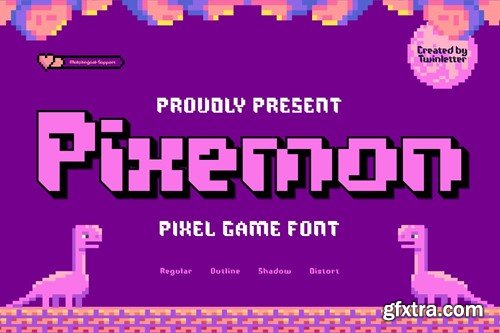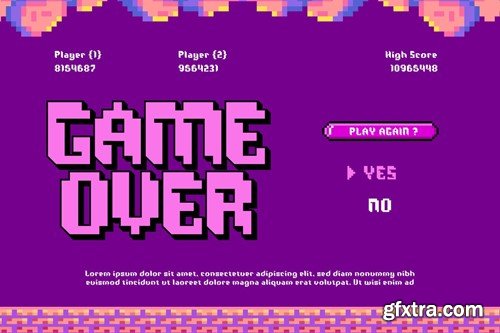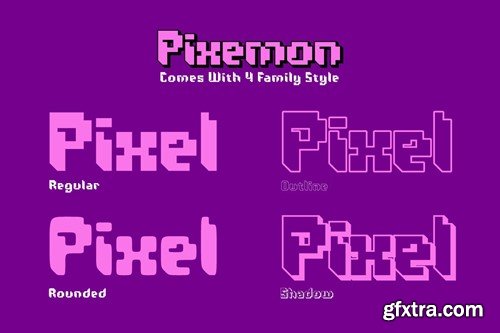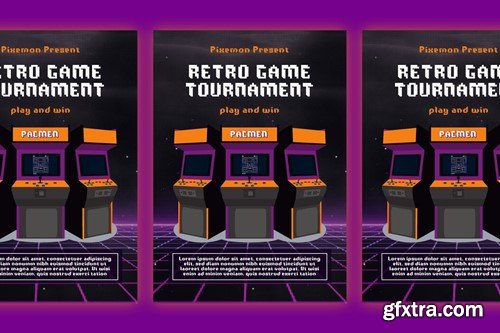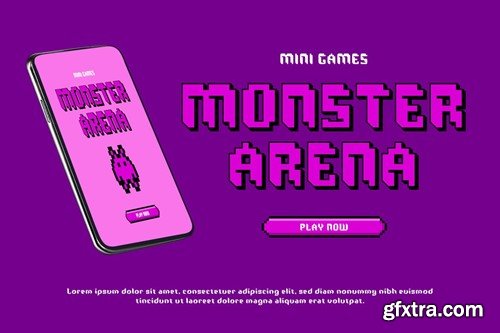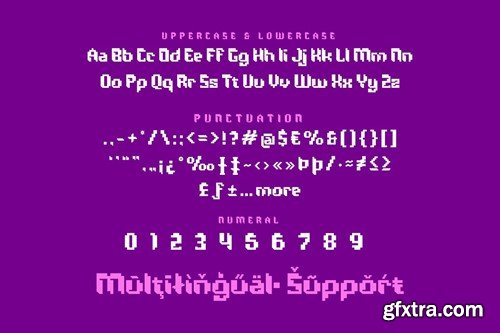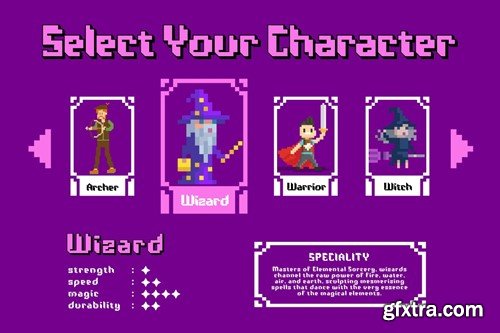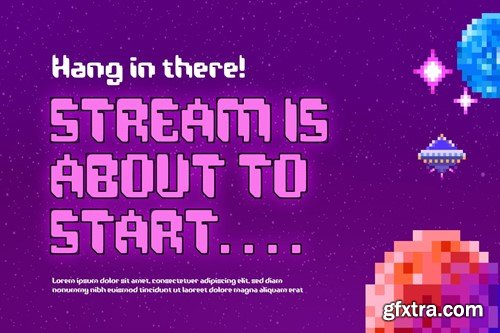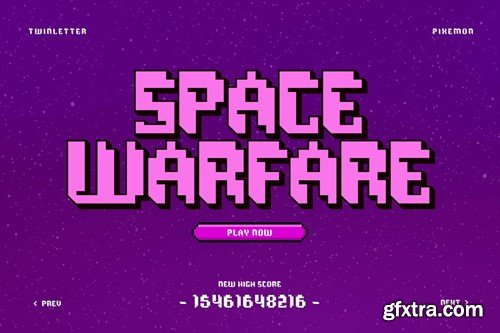
Pixemon is a typeface that combines the essence of pixel art with a modern twist, creating a fun look reminiscent of the classic video game era. This font is designed to give a retro feel and excitement to pixel gaming projects or games with an 8-bit aesthetic. Each letter in Pixemon is designed with detailed pixels that create the impression of a classic game character. With a bright and varied color palette, this font exudes positive energy and cheerfulness. The letters come together in a pixel design that provides clarity and readability while maintaining the uniqueness and appeal of the pixel aesthetic. Pixemon provides a deeply retro feel when used in gaming projects, creating an atmosphere reminiscent of old-school gaming experiences. This font is perfect for game titles, in-game text, or other design elements that want to express classic graphic style and pixel fun. Pixemon combines nostalgia with a contemporary twist, making it the perfect choice for game developers who want to emphasize a retro aesthetic while maintaining a fresh and relevant feel for modern players. What’s Included: